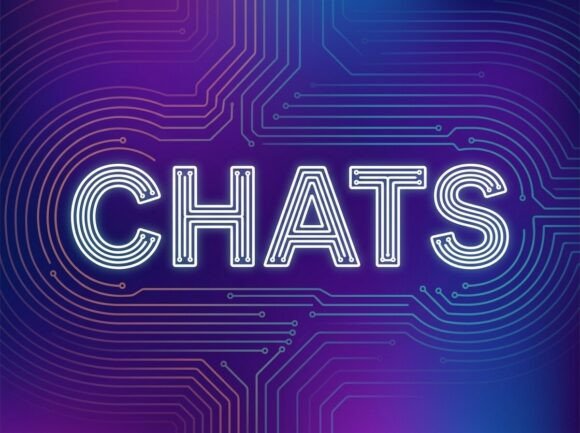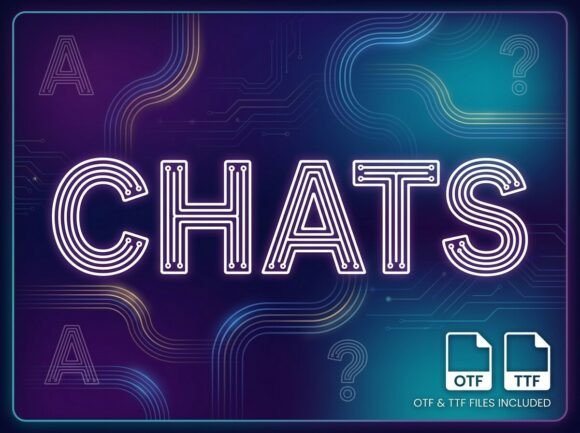
Introducing Chats Font: The Ultimate Display Typeface for a Connected World
In the rapidly evolving digital landscape, a brand’s visual identity is more crucial than ever. A well-crafted font can elevate a company’s image, convey its values, and leave a lasting impression on its audience. For forward-thinking businesses and designers, Chats Font is the perfect solution. This high-tech display typeface embodies the spirit of innovation, connection, and intelligence, making it the ideal choice for cutting-edge brands.
The Design Philosophy Behind Chats Font
Chats Font is more than just a collection of letters; it’s a visual representation of the digital age. Its bold, geometric letterforms are meticulously designed to resemble the intricate patterns found on circuit boards. The font features rhythmic parallel lines and terminal nodes that evoke the flow of data, creating a sense of dynamism and energy. This futuristic aesthetic is perfect for brands that want to convey a sense of technological sophistication and innovation.
Key Features of Chats Font
- Bold and Geometric Letterforms: Chats Font boasts sturdy, geometric letterforms that exude confidence and modernity.
- Rhythmic Parallel Lines: The font’s unique parallel lines create a sense of rhythm, echoing the flow of data through digital circuits.
- Neon-Inspired Glow: Chats Font features a neon-inspired glow, adding a touch of futurism and high-tech flair to any design.
- Sophisticated Technological Aesthetic: The font’s design is deeply rooted in the world of technology, making it perfect for brands that want to convey a sense of innovation and expertise.
Perfect Use Cases for Chats Font
Chats Font is incredibly versatile, making it suitable for a wide range of applications. Here are some of the perfect use cases for this exceptional display typeface:
- Independent Software Startup Branding: Chats Font is an excellent choice for software startups looking to establish a strong, modern brand identity.
- IT Consultancy Logos: The font’s technological aesthetic makes it perfect for IT consultancies, helping them convey expertise and sophistication.
- Futuristic App Interfaces: Chats Font is ideal for designing futuristic app interfaces that require a bold, high-tech look.
- High-Impact Social Media Headers: The font’s neon-inspired glow and bold letterforms make it perfect for creating eye-catching social media headers that demand attention.
To get the most out of Chats Font, consider the following tips:
- Experiment with Color: Chats Font’s neon-inspired glow can be amplified with bold, bright colors. Don’t be afraid to experiment and find the perfect color scheme for your design.
- Mix and Match: Combine Chats Font with other fonts to create a unique visual identity. The font’s bold letterforms can be paired with simpler fonts to create a striking contrast.
- Pay Attention to Line Spacing: To maintain the font’s rhythmic flow, ensure that line spacing is consistent and harmonious.
Chats Font is a game-changing display typeface that embodies the spirit of innovation and connection. Its bold, geometric letterforms, rhythmic parallel lines, and neon-inspired glow make it the perfect choice for forward-thinking brands. Whether you’re a designer, crafter, or business owner, Chats Font is an excellent addition to your toolkit. With its versatility and sophistication, this font is sure to elevate your designs and leave a lasting impression on your audience.